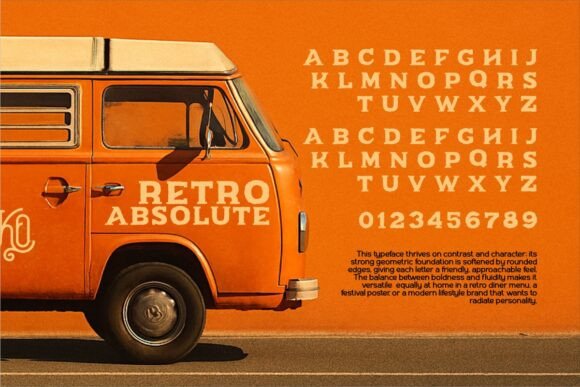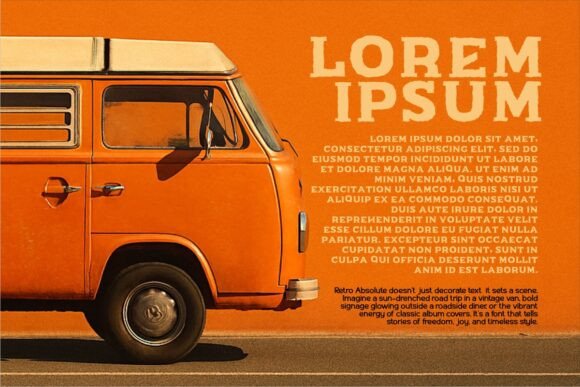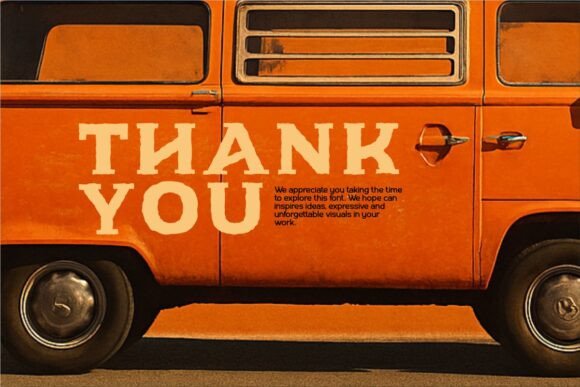
Introduction to Retro Absolute Font
Retro Absolute is a cool and timeless retro serif font.
Its classic style brings a nostalgic touch to your projects, making it perfect for a vintage vibe Whether youโre designing posters, logos, or invitations, Retro Absolute adds a touch of old-school charm with its distinctive and straightforward letterforms.
Key Features of Retro Absolute Font
Why Choose Retro Absolute Font?
Retro Absolute Font offers exceptional quality and versatility, making it a valuable addition to your design toolkit. Whether you’re creating for personal projects or commercial use, Retro Absolute Font delivers professional results.